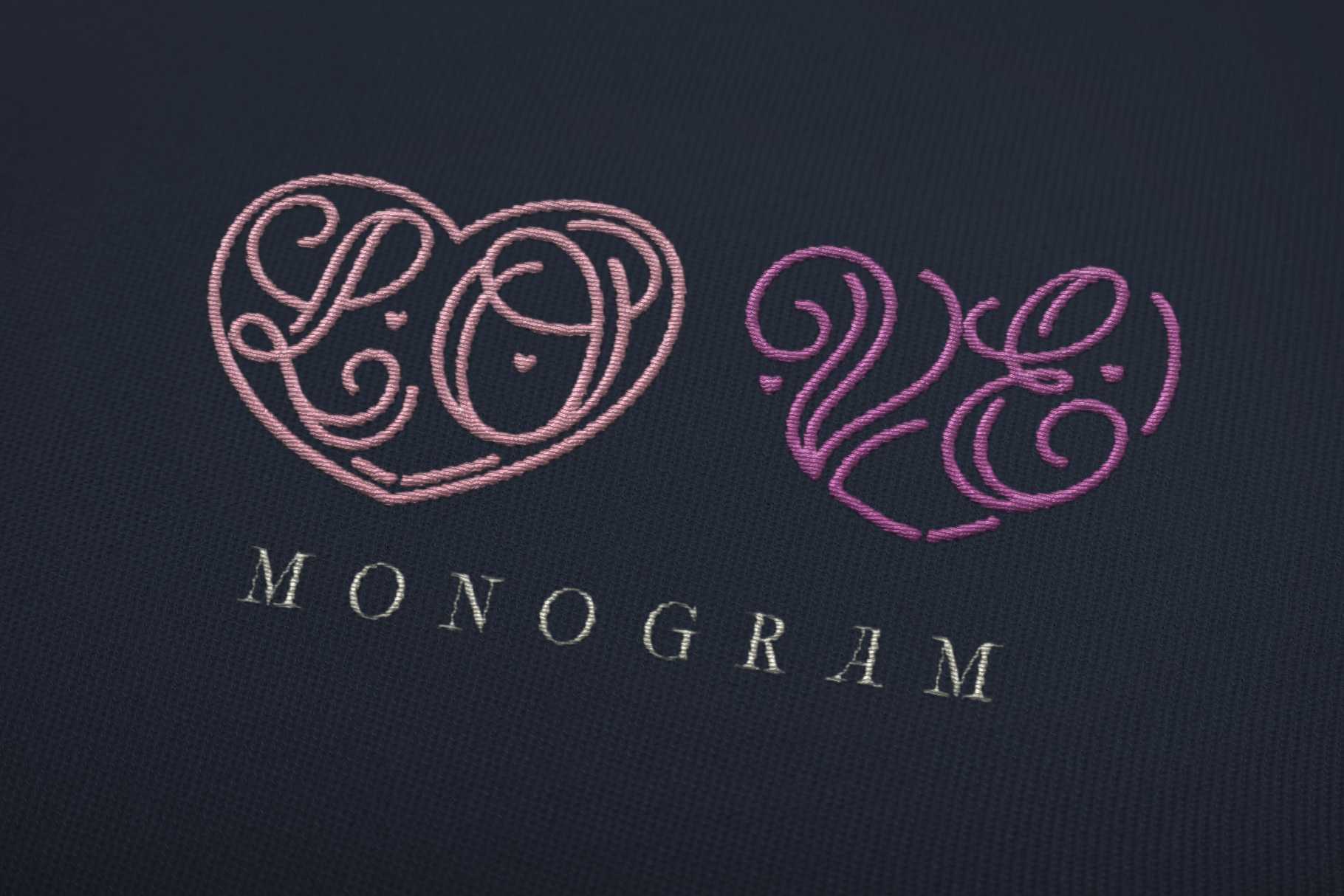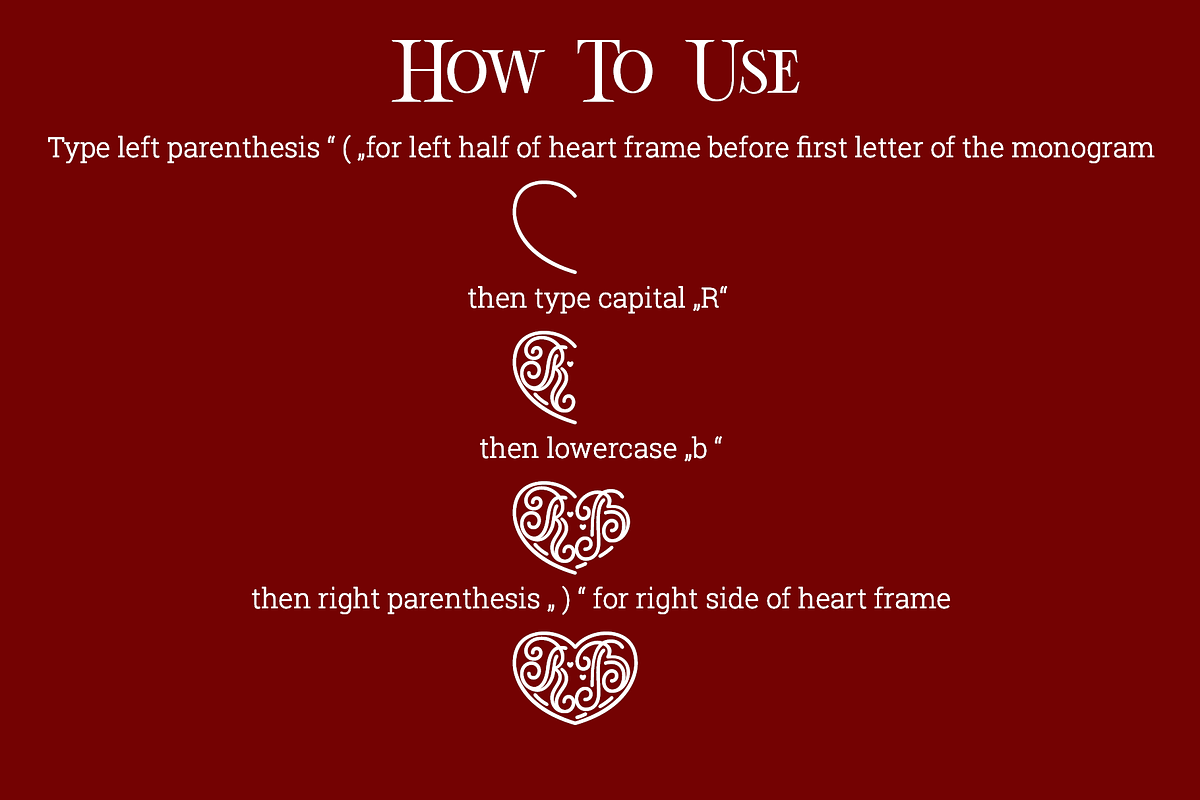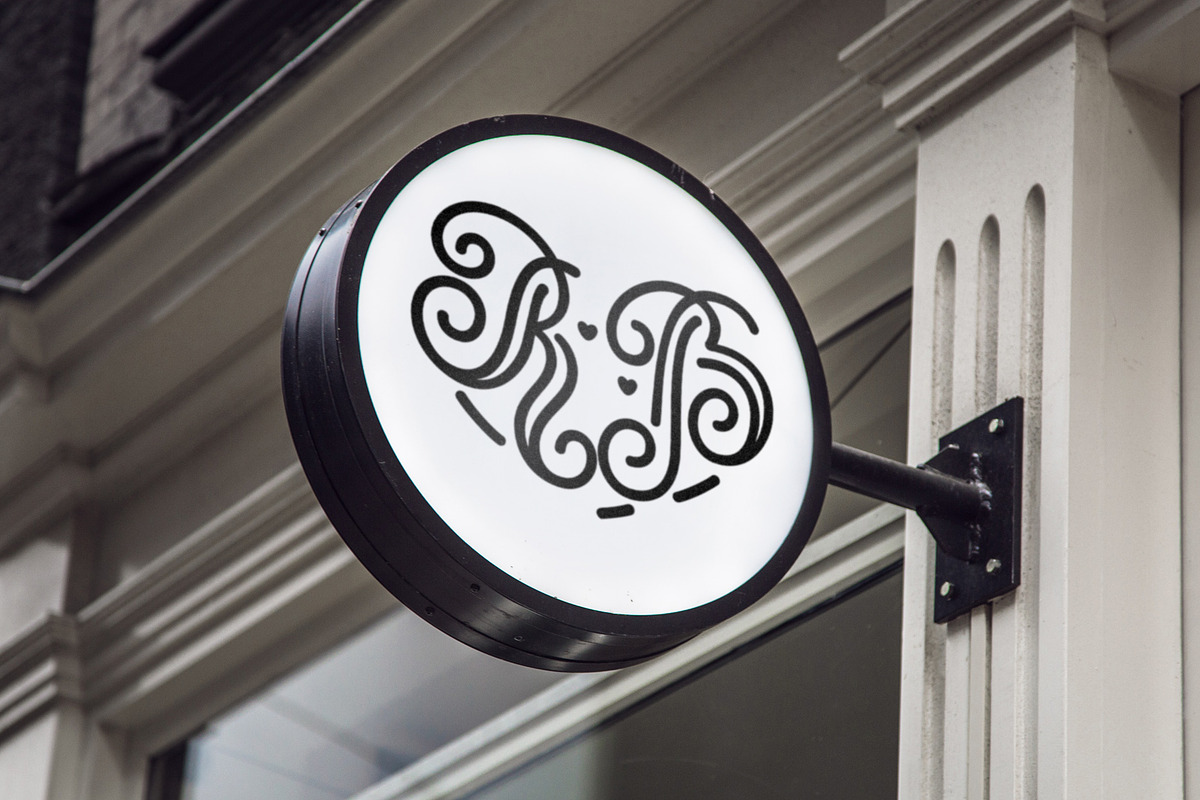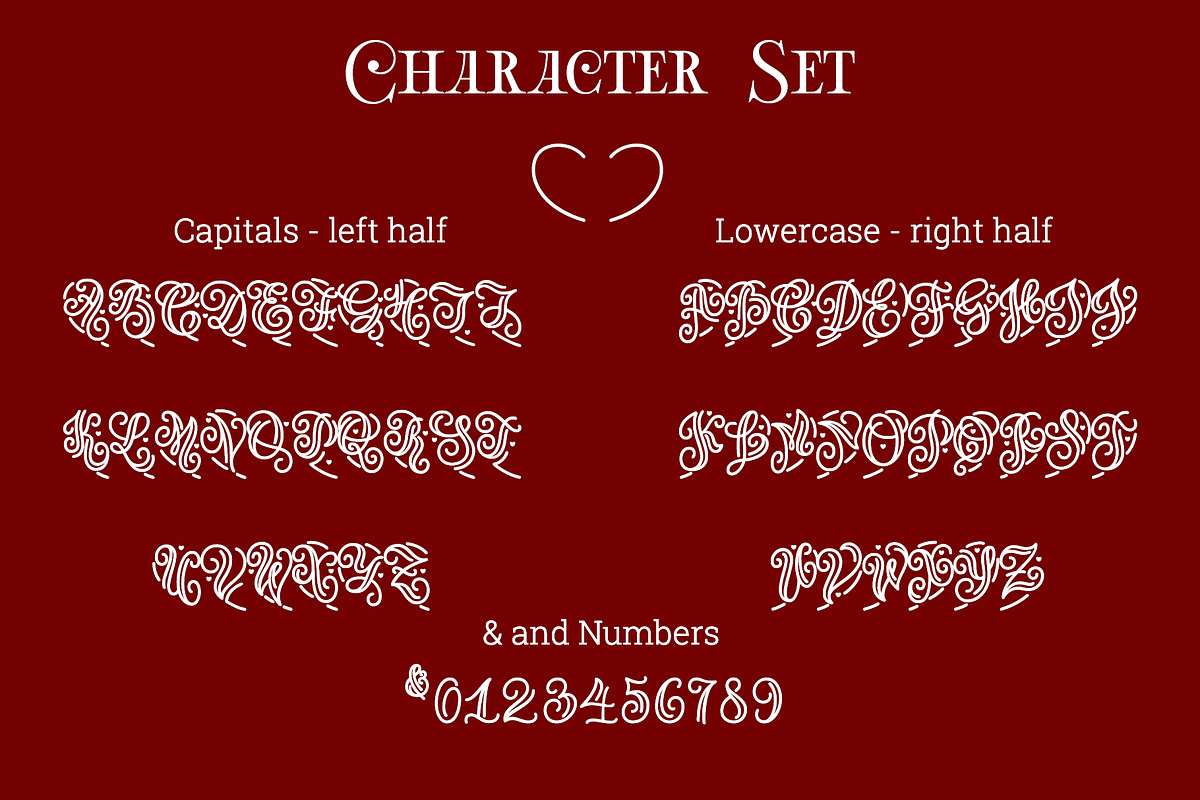
Lo-Ve Monogram font
This is a display font designed for 2 letter monograms. Capital letters are forming the left part of the heart shape and lowercase letters are the right half. Parenthesis (paren left and right) are forming a heart frame. You can put the letters between parenthesis to emphasize the heart shape with a frame.The font contains only Capital letters A-Z, lowercase letters a-z parenthesis, period, comma, ampersand and numbers 0-9. Made in collab with RB font.